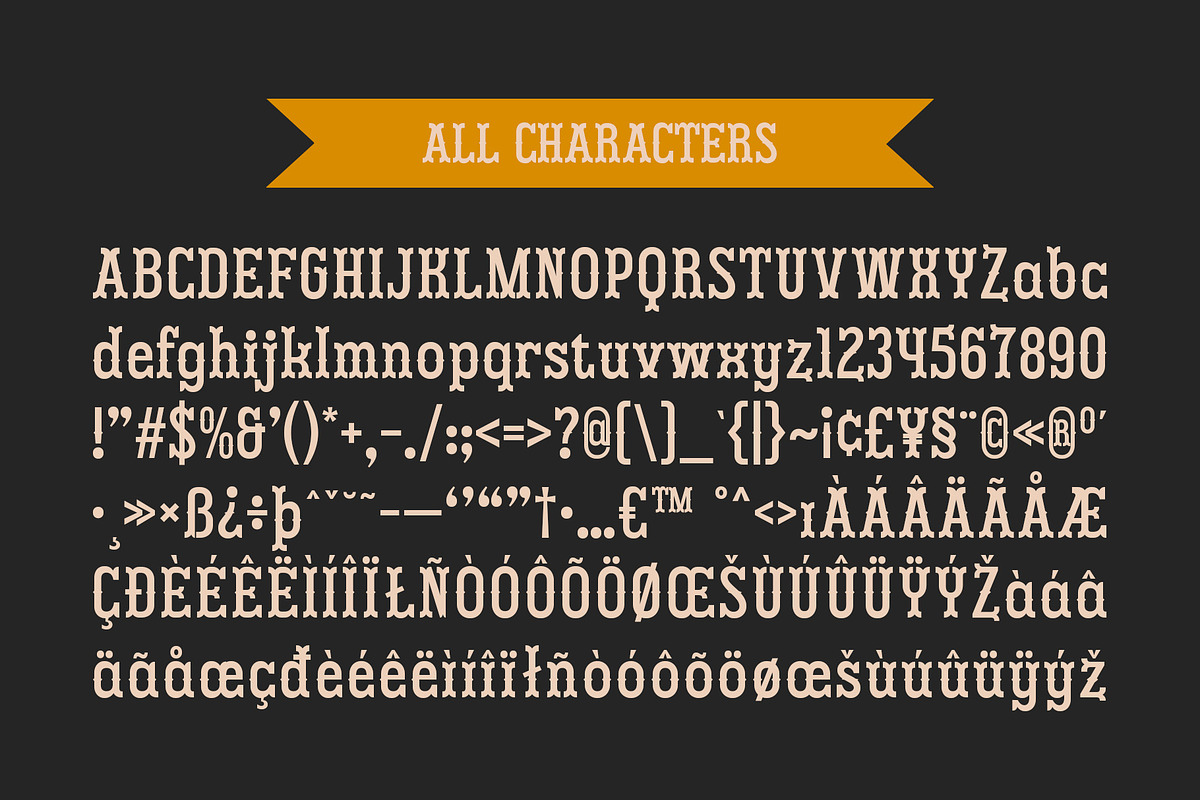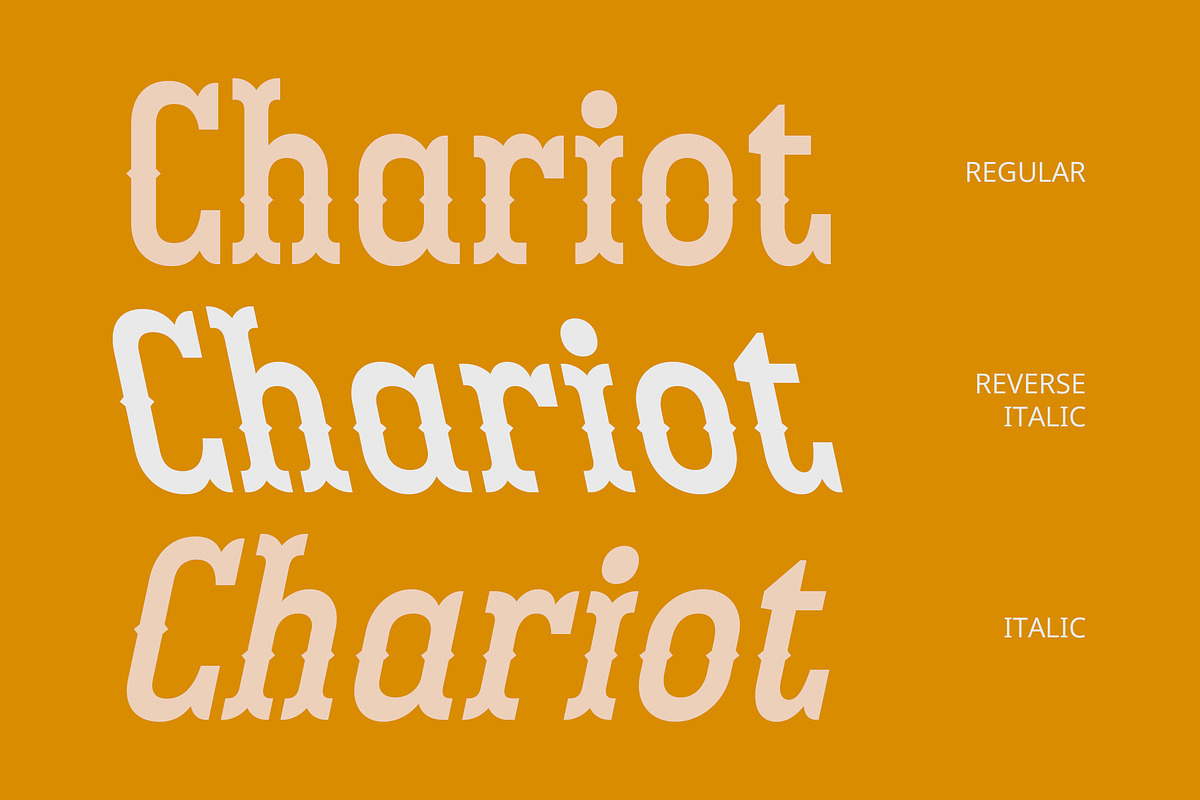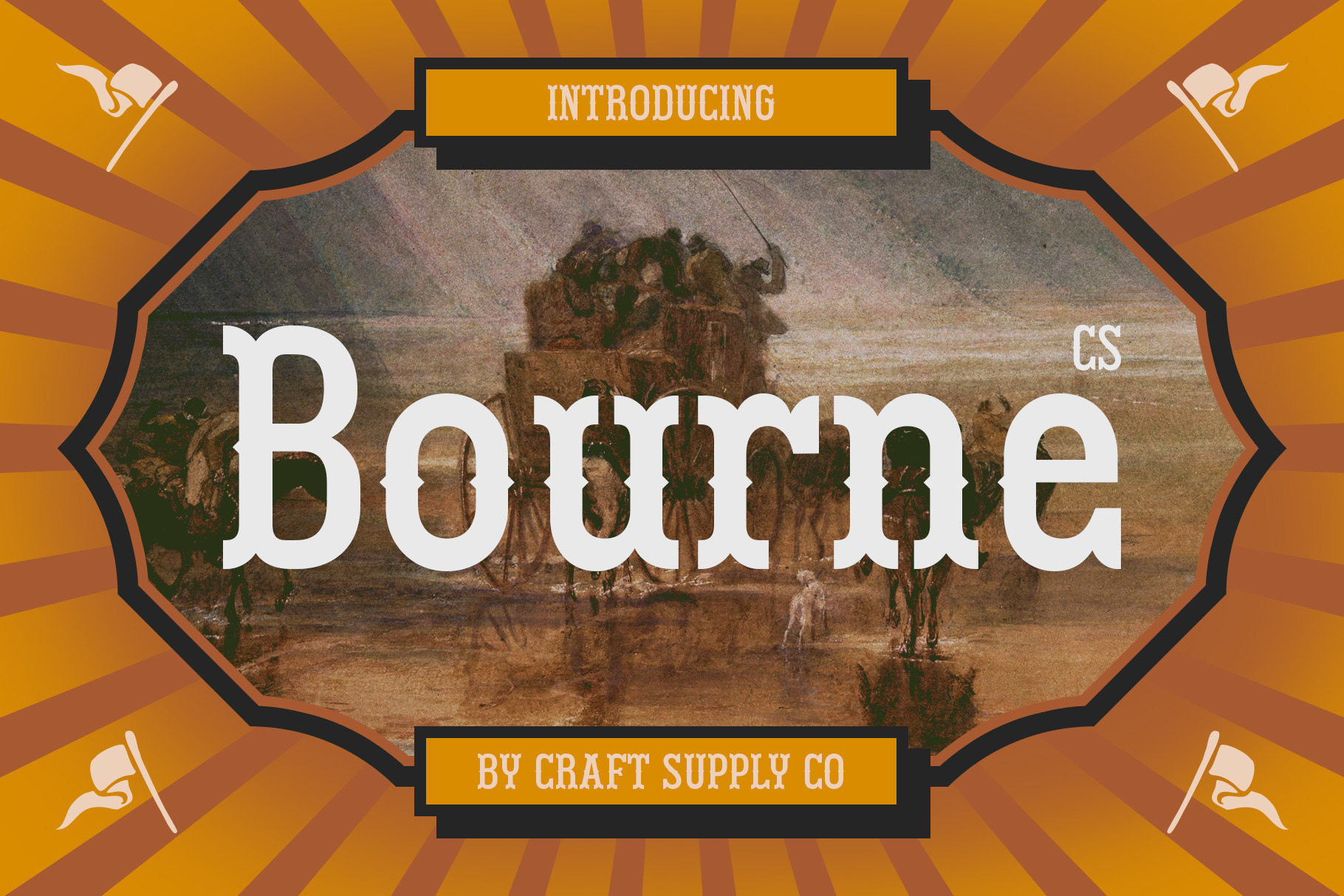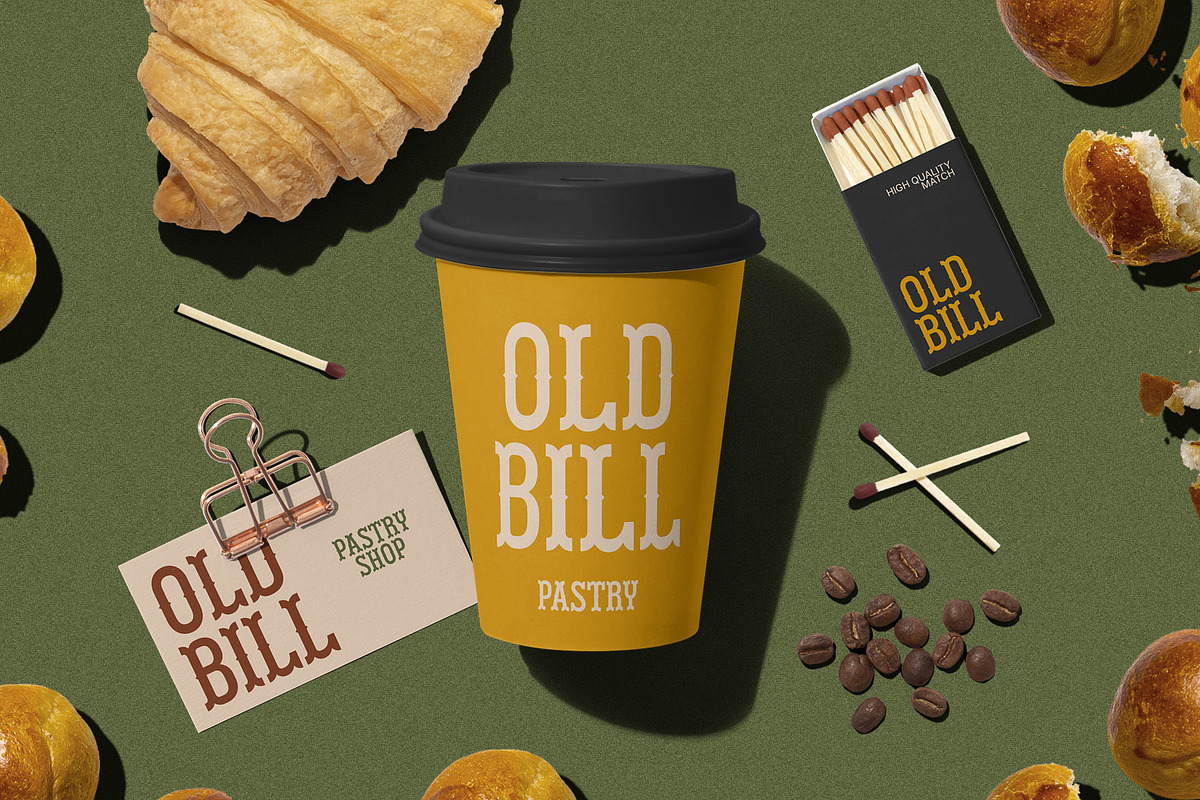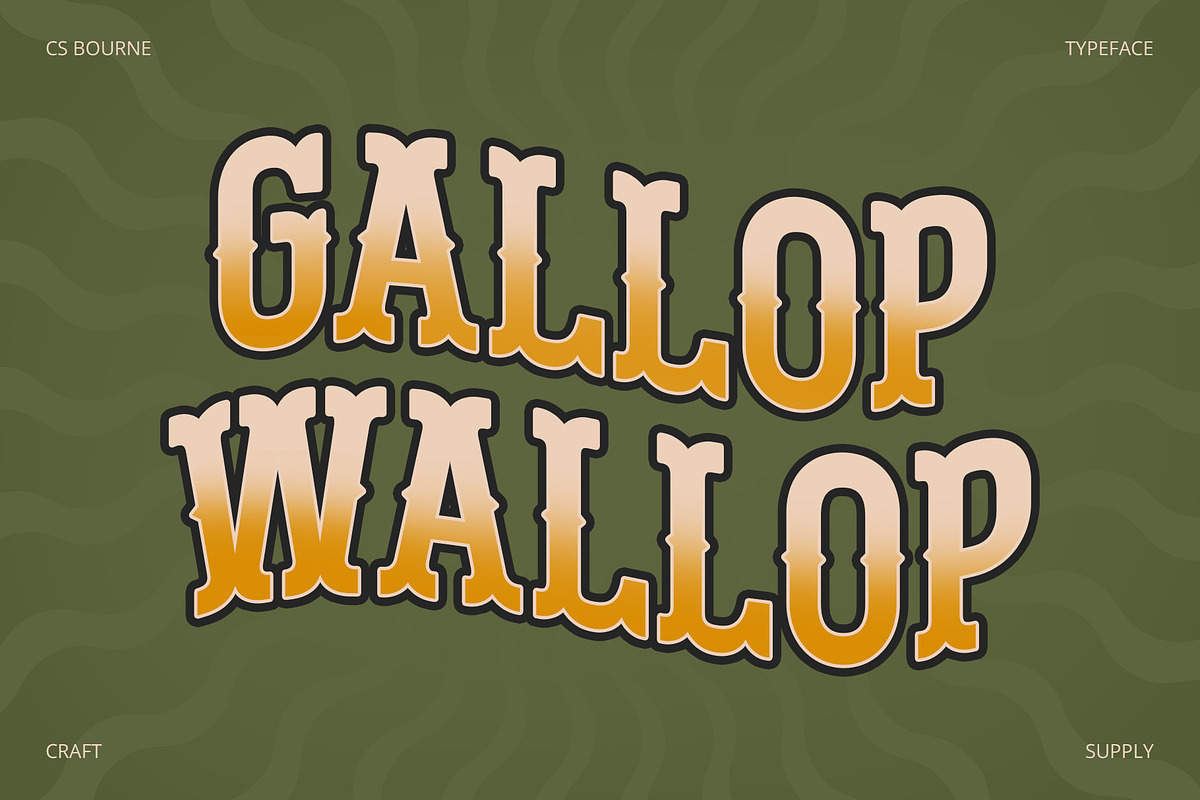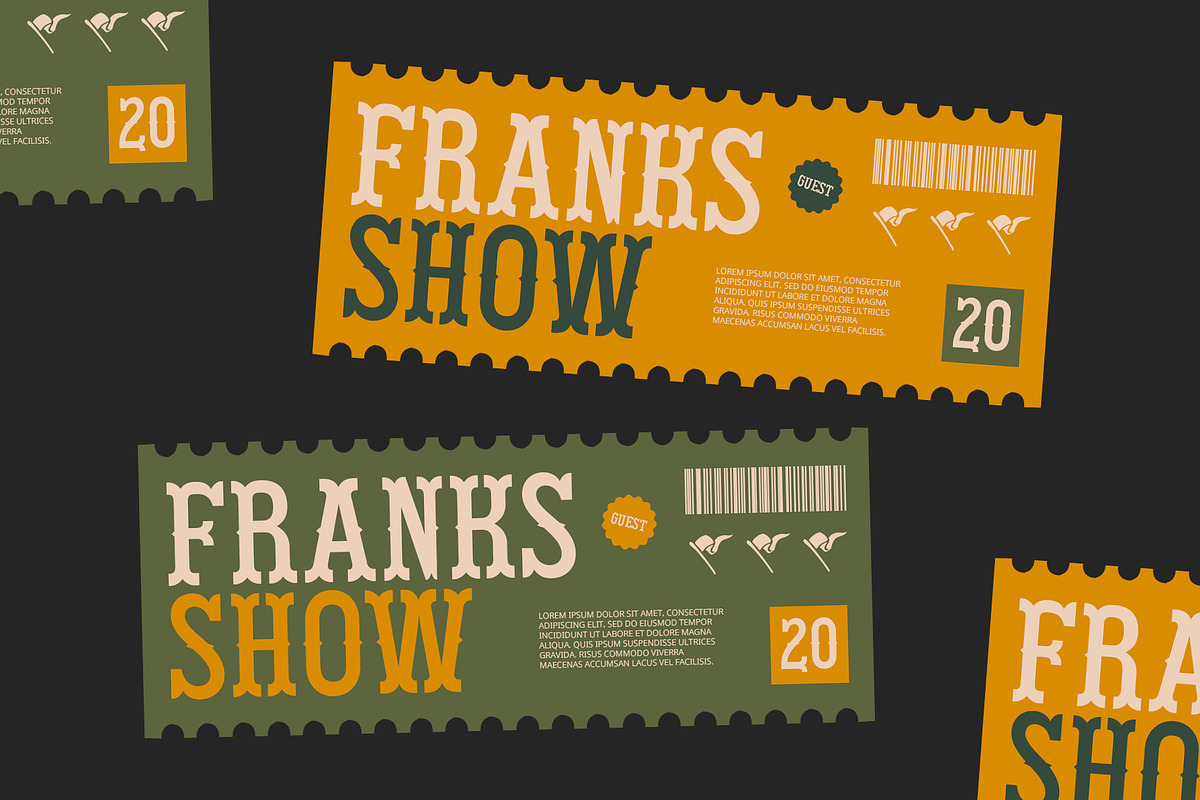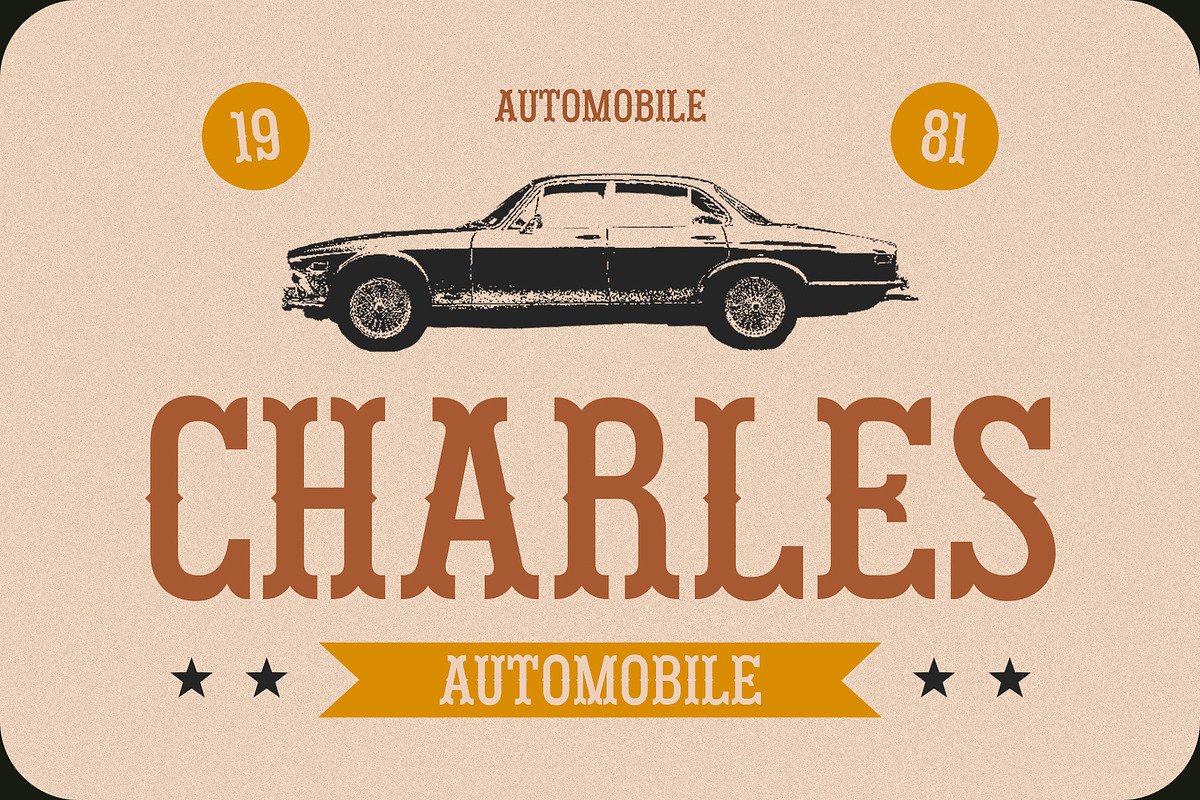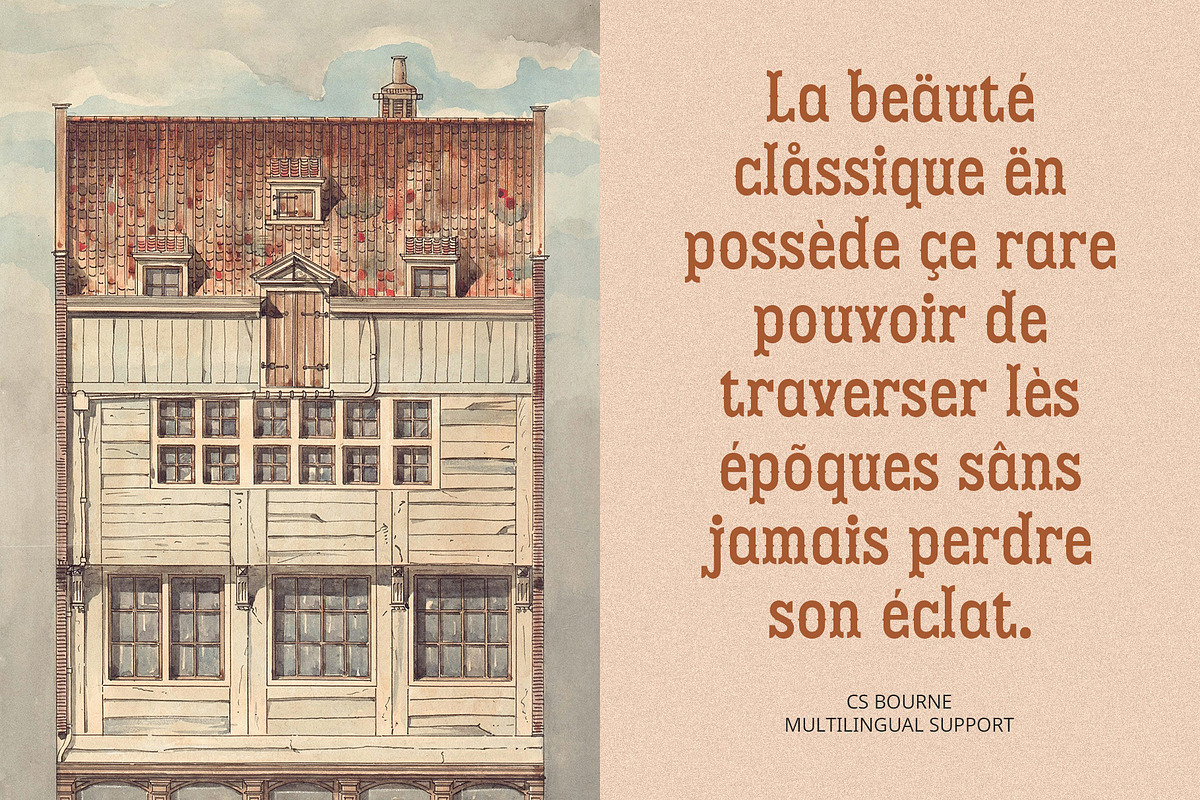
CS Bourne – Tuscan Font
CS Bourne – Tuscan Font: A Journey into Vintage Elegance
Distinctive Display Font with Tuscan Flair CS Bourne – Tuscan Font is a captivating display font that masterfully blends decorative elements and unique characteristics to create a striking vintage and retro impression. With its prominent serifs and ornate embellishments adorning the ends of each letter, this font evokes a powerful sense of nostalgia, effortlessly transporting viewers back to a time when design was rich in detail and craftsmanship.
Intriguing Contrast of Thick and Thin Lines What sets the Tuscan design apart is its fascinating interplay of thick and thin lines, resulting in a visually intriguing contrast that enhances its overall appeal. The wavy forms and ornamental flourishes infuse the font with a playful and artistic character, making it an ideal choice for design projects that emphasize uniqueness and creativity. Each letter feels alive with personality, ensuring that your message is communicated with flair and style.
Perfect for Retro and Elegant Branding CS Bourne is particularly well-suited for a variety of applications, including retro posters, product packaging, and branding initiatives that aim to convey a classic and sophisticated aesthetic. Its ability to blend elegance with artistic charm ensures that your designs will resonate with audiences and leave a lasting impression.
- CS Bourne Regular
- CS Bourne Italic
- CS Bourne Reverse Italic